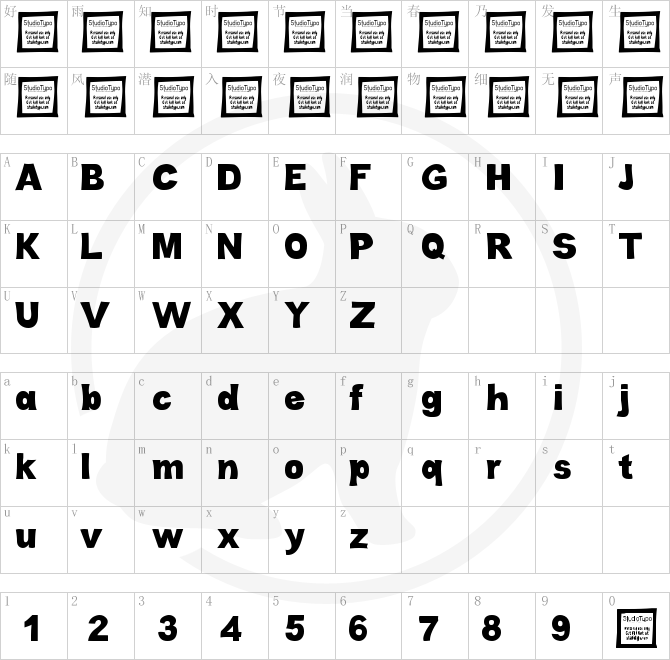
- Font Name:Cabold Comic
Cabold-Comic.otf is a very beautiful artistic font, Cabold-Comic.otf is widely used in the design and printing of various books and pictures,Cabold-Comic.otf has a strong visual impact,Cabold-Comic.otf is a commonly used font in newspapers, magazines and books, and is used in posters, e-commerce Poster design, store design, logo design, font design and other fields.Cabold-Comic.